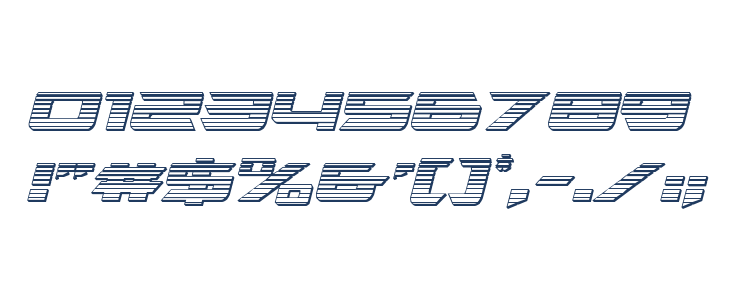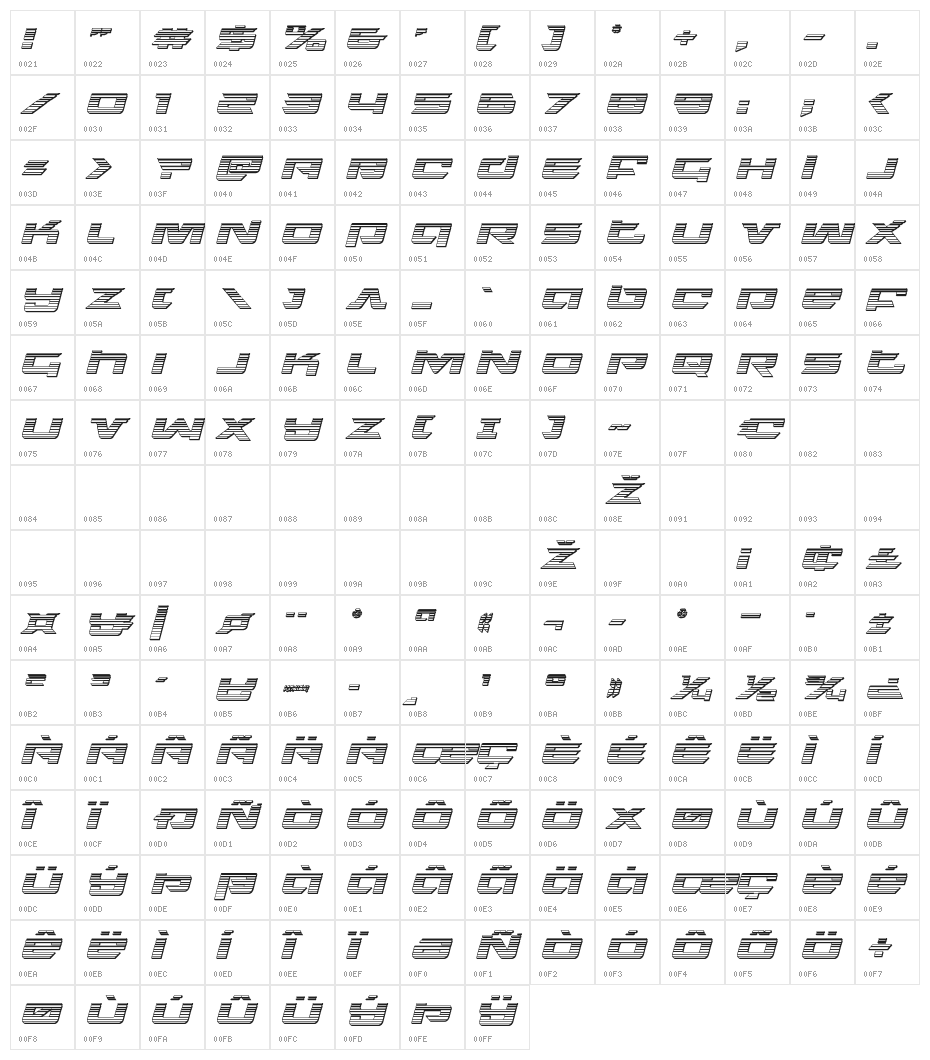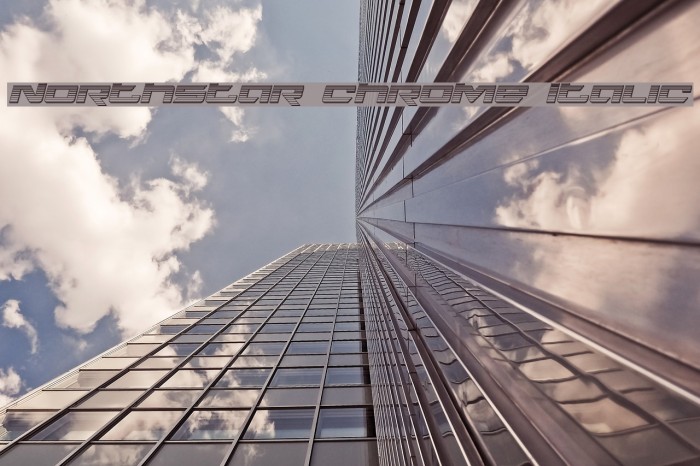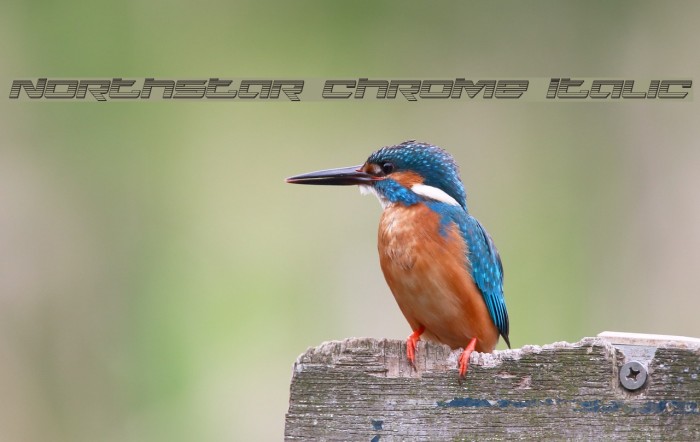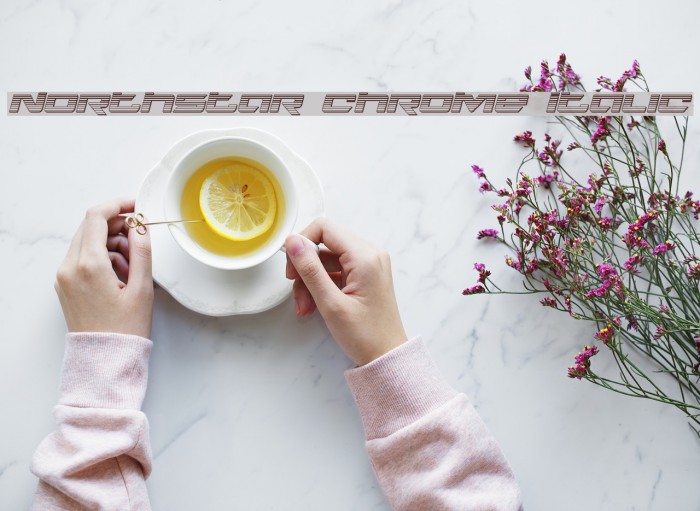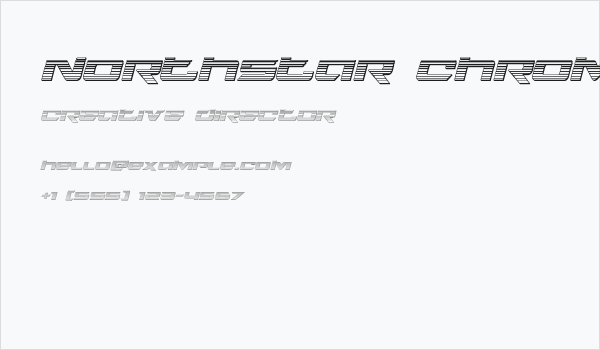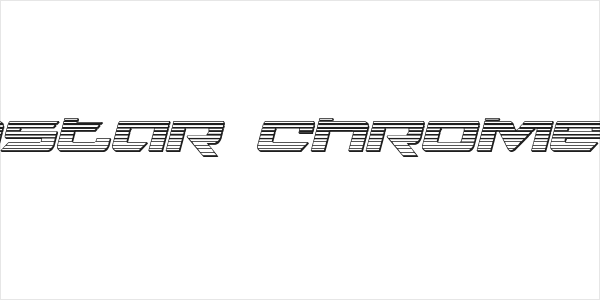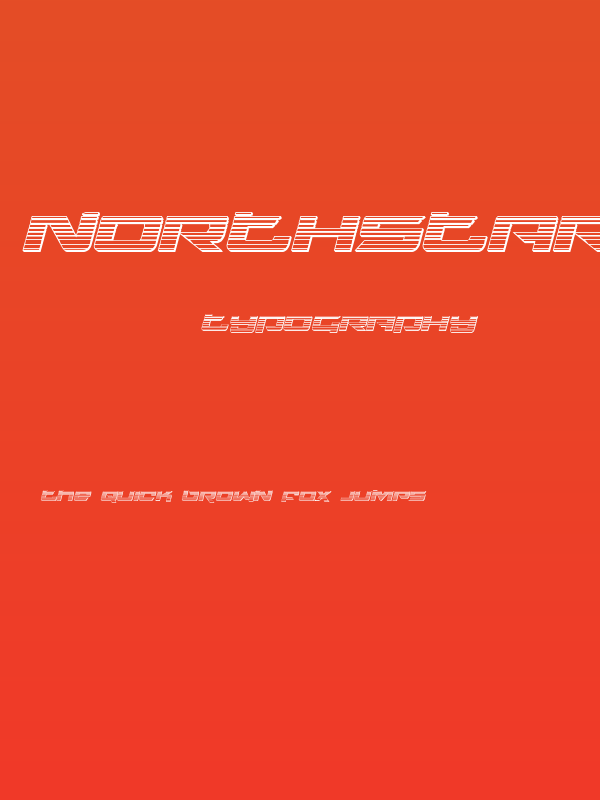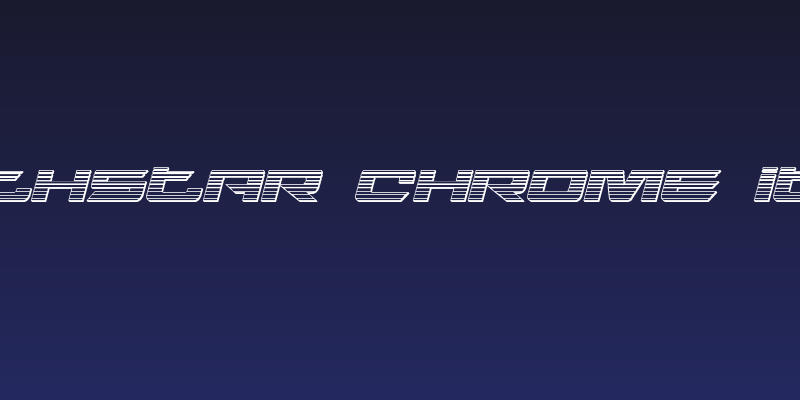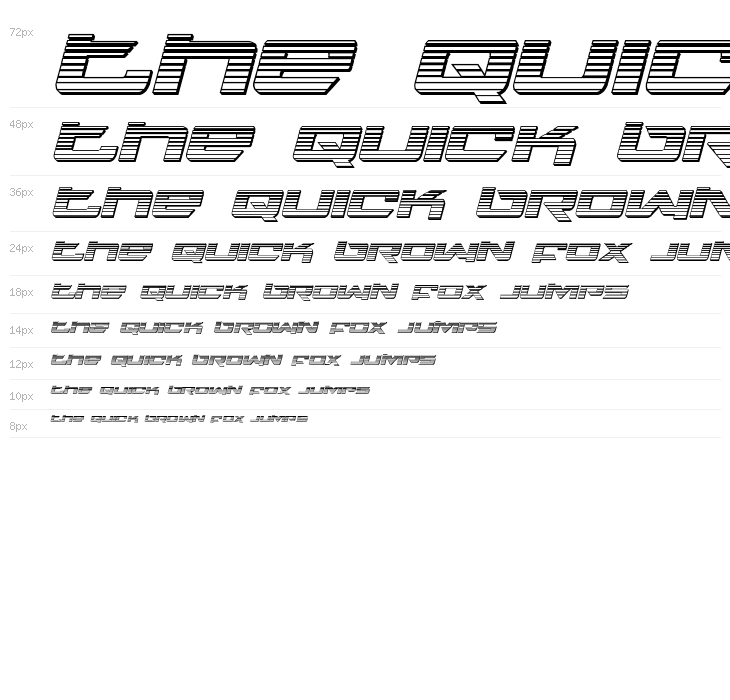
Northstar Chrome Italic Font
Northstar Chrome Italic Description
This font features a futuristic and dynamic design with a distinct italic slant. The characters are composed of multiple parallel lines, creating a striped effect that adds depth and movement. The angular and geometric shapes give it a modern and edgy appearance, suitable for projects that require a bold and eye-catching style. The uppercase and lowercase letters maintain a consistent design, while the numerals and special characters complement the overall aesthetic. This font is ideal for use in digital and print media where a contemporary and innovative look is desired.
| Proposed Projects | Ideal for sci-fi themed designs, video game graphics, tech branding, and modern posters. |